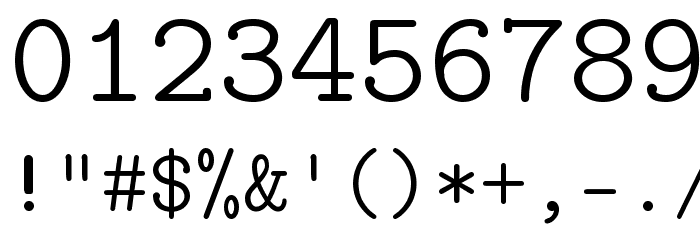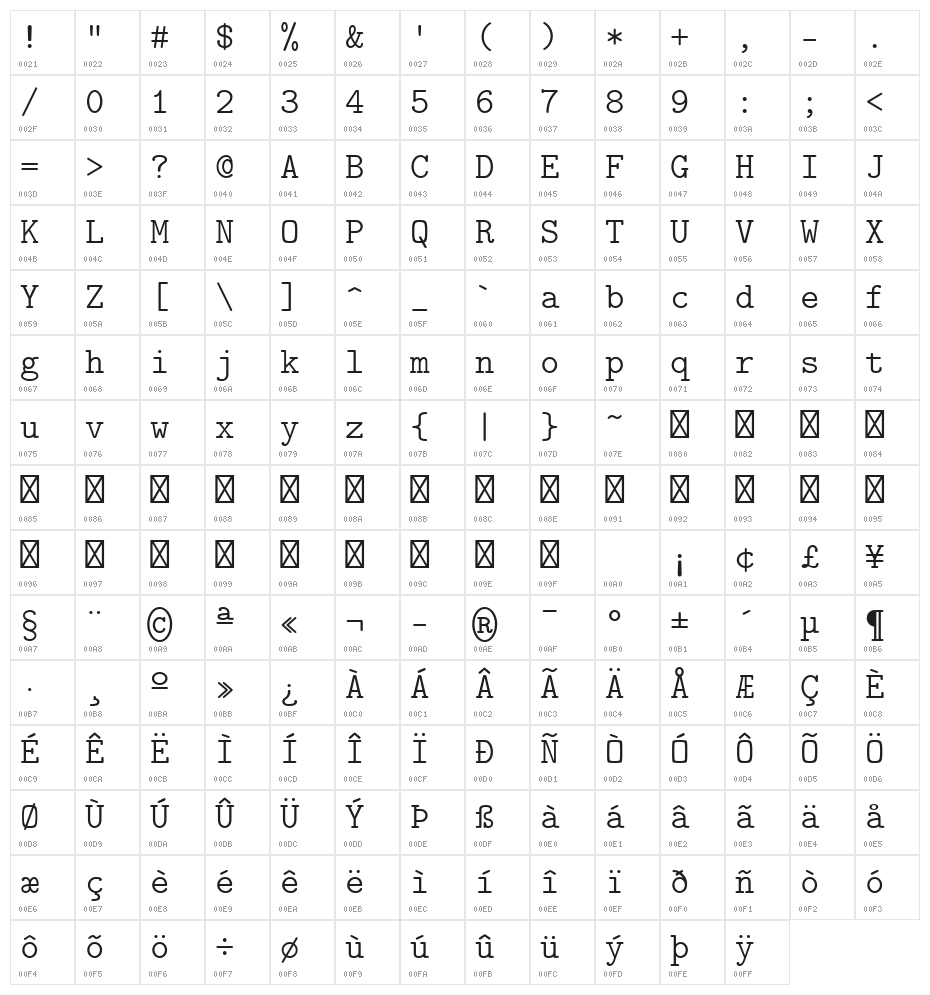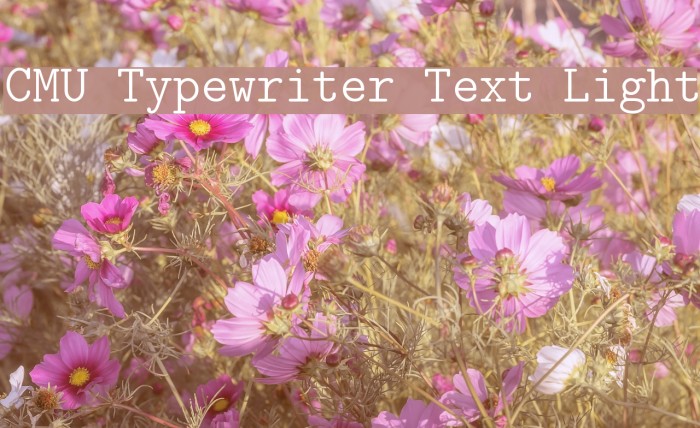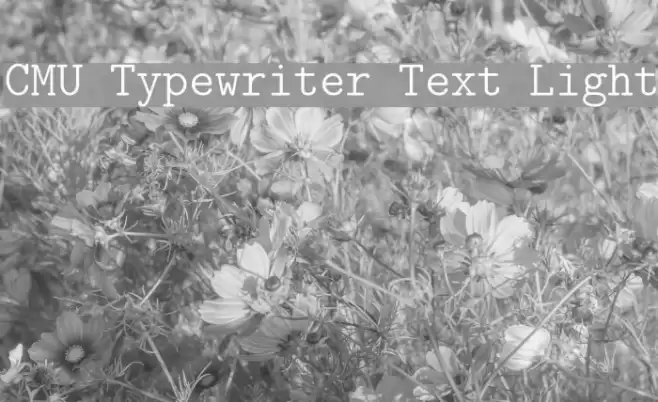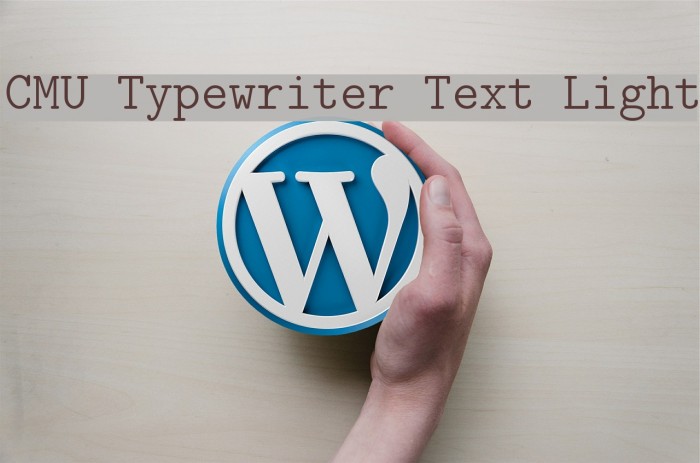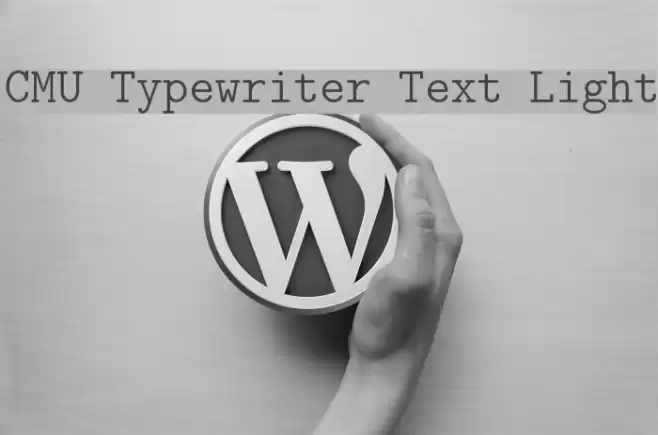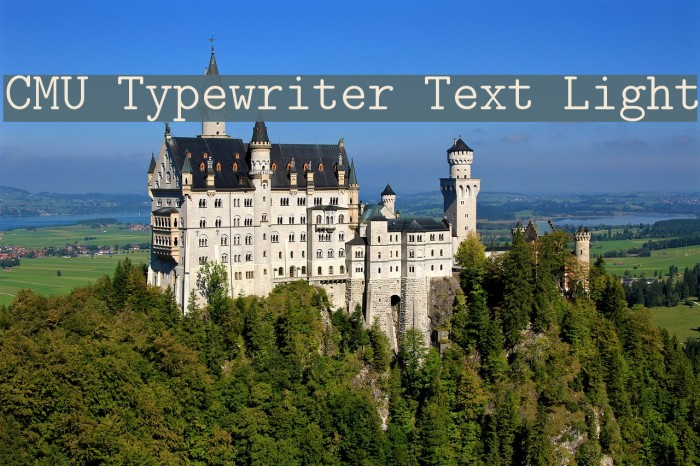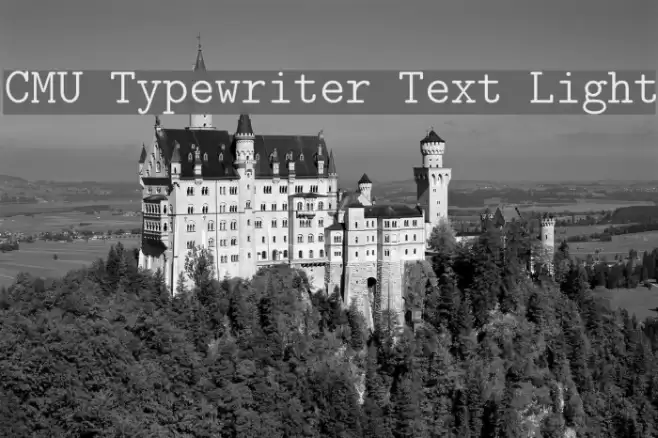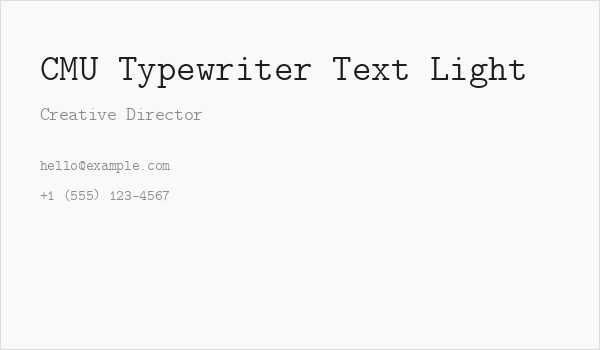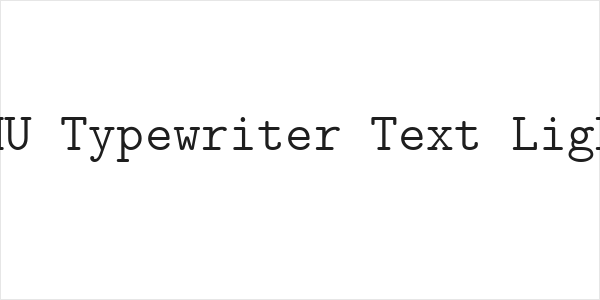
CMU Typewriter Text Light Font
CMU Typewriter Text Light Description
This typeface embodies the classic aesthetic of a typewriter font, characterized by its monospaced design where each character occupies the same amount of horizontal space. The letters are clean and straightforward, with a slight roundedness that softens the otherwise mechanical appearance. The uniformity in character width gives it a structured and orderly look, reminiscent of traditional typewritten documents. Its light weight adds a touch of elegance, making it suitable for both formal and informal contexts. The font maintains a consistent stroke width, offering a low contrast that enhances readability across various sizes. Its simplicity and clarity make it a versatile choice for a range of applications.
| Use Case | Body text, Coding, Retro designs |
| Proposed Projects | Ideal for coding environments, retro-themed designs, typewriter-style documents, and any project requiring a vintage or mechanical aesthetic. |